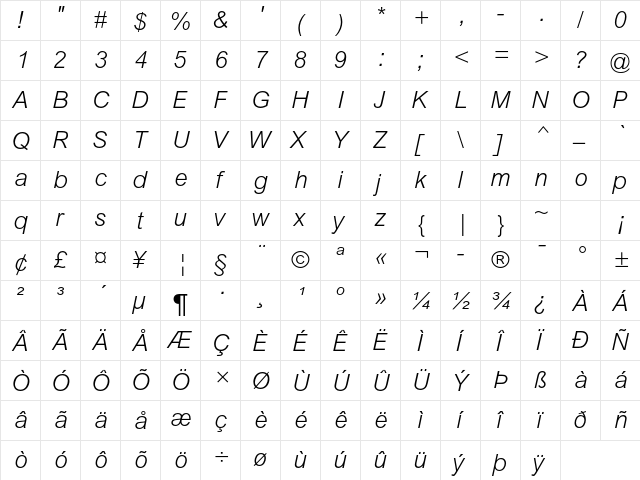
Arial MT Std Light Italic Font Preview
Arial MT Std Light Italic
Arial MT Std Light Italic Font Details
| Style | Light Italic |
| Foundry | Agfa Monotype Corporation |
Design Context for Arial MT Std Typeface
Arial MT Std is a composed and adaptable typeface that performs quietly and consistently across a wide range of design contexts. Its italic angle brings a sense of urgency and motion to the letterforms. Its slender proportions lend an understated elegance to any composition.